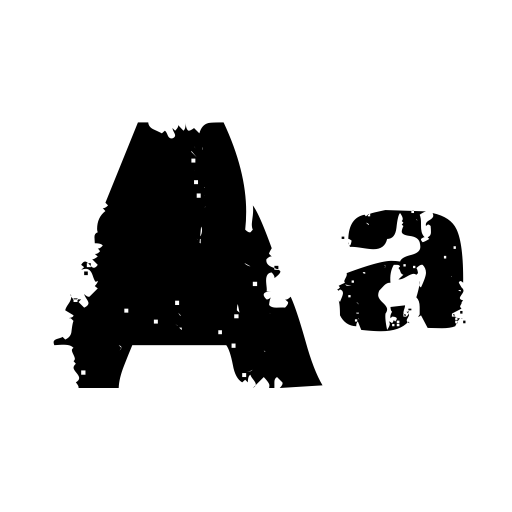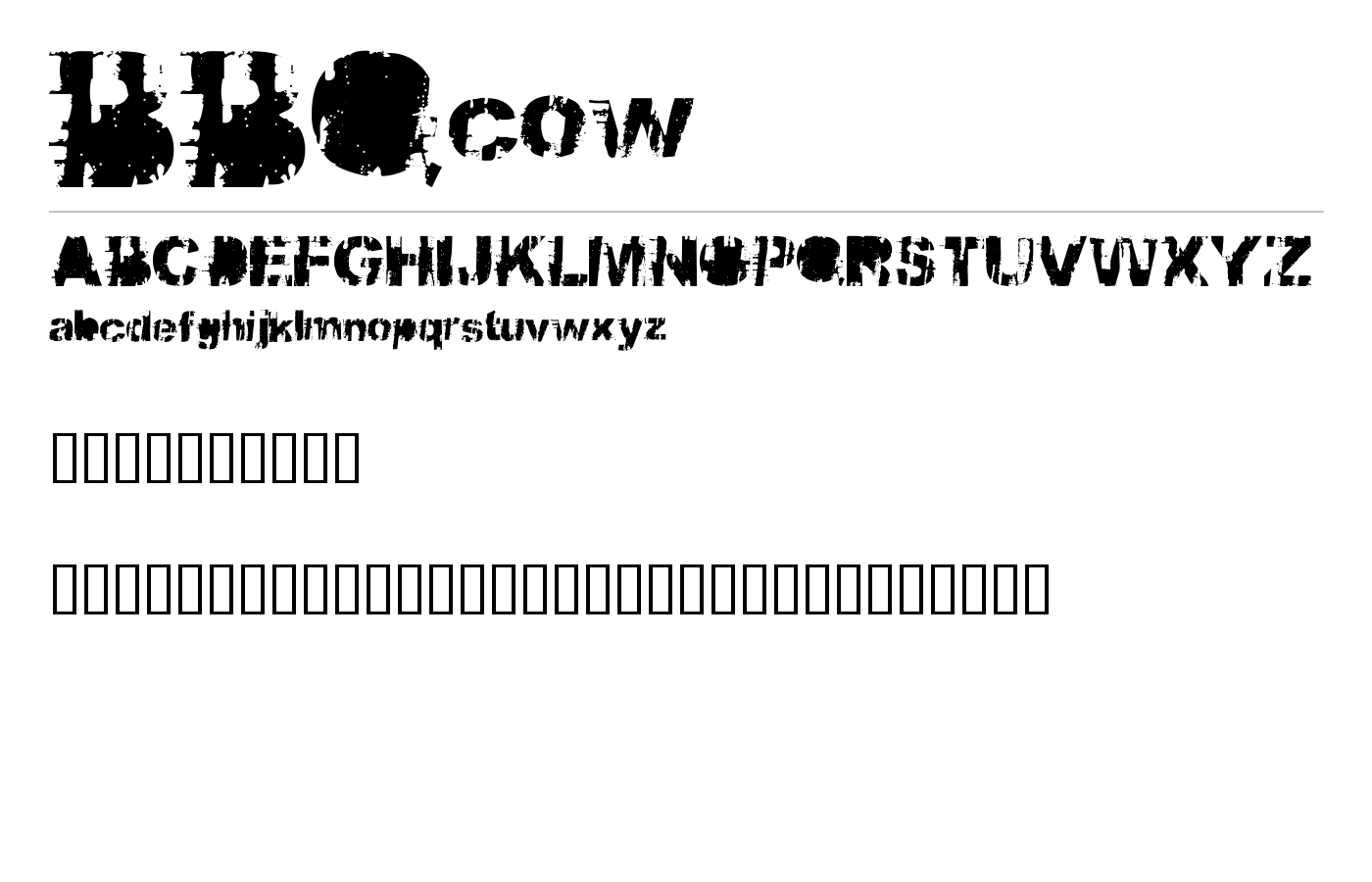
BBQcow is a bold, distressed sans serif font with a rugged, textured appearance that evokes a raw, edgy vibe. Its sturdy letterforms and irregular, worn edges make it perfect for designs needing a gritty, vintage feel, ideal for posters, logos, or branding with a strong, rebellious personality. This font stands out in headlines or display uses where a striking, rough aesthetic is desired.
BBQcow Font